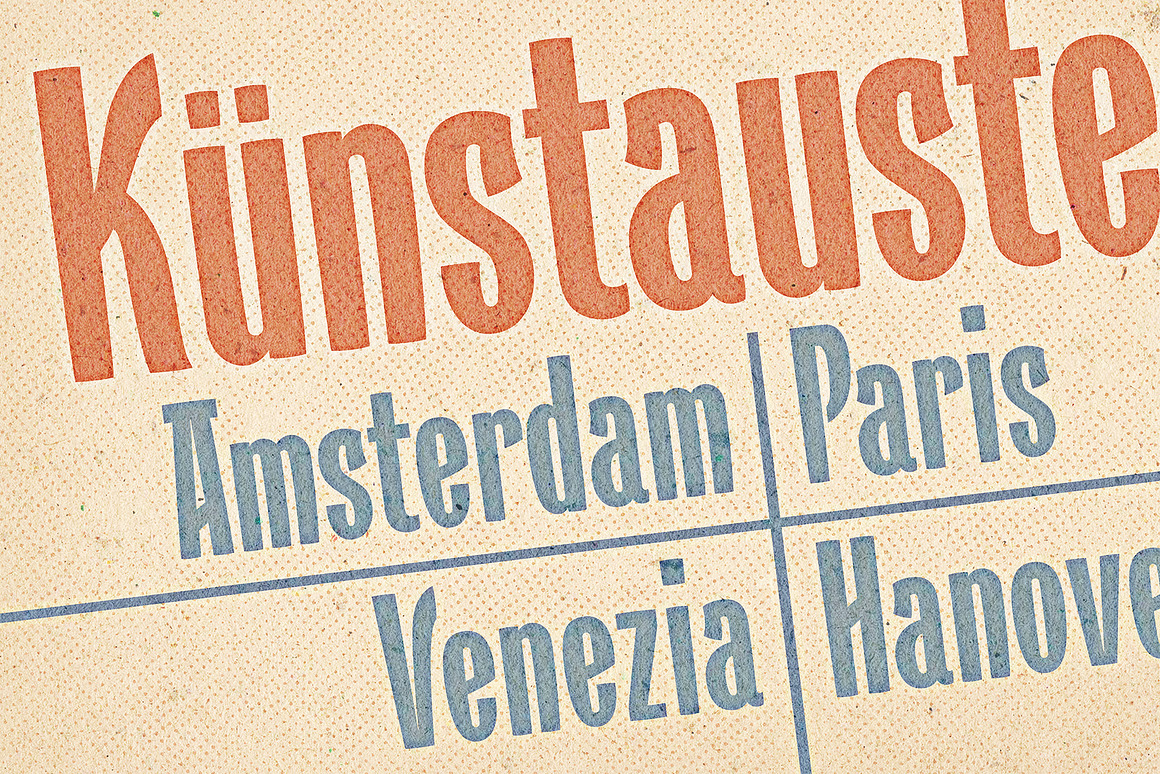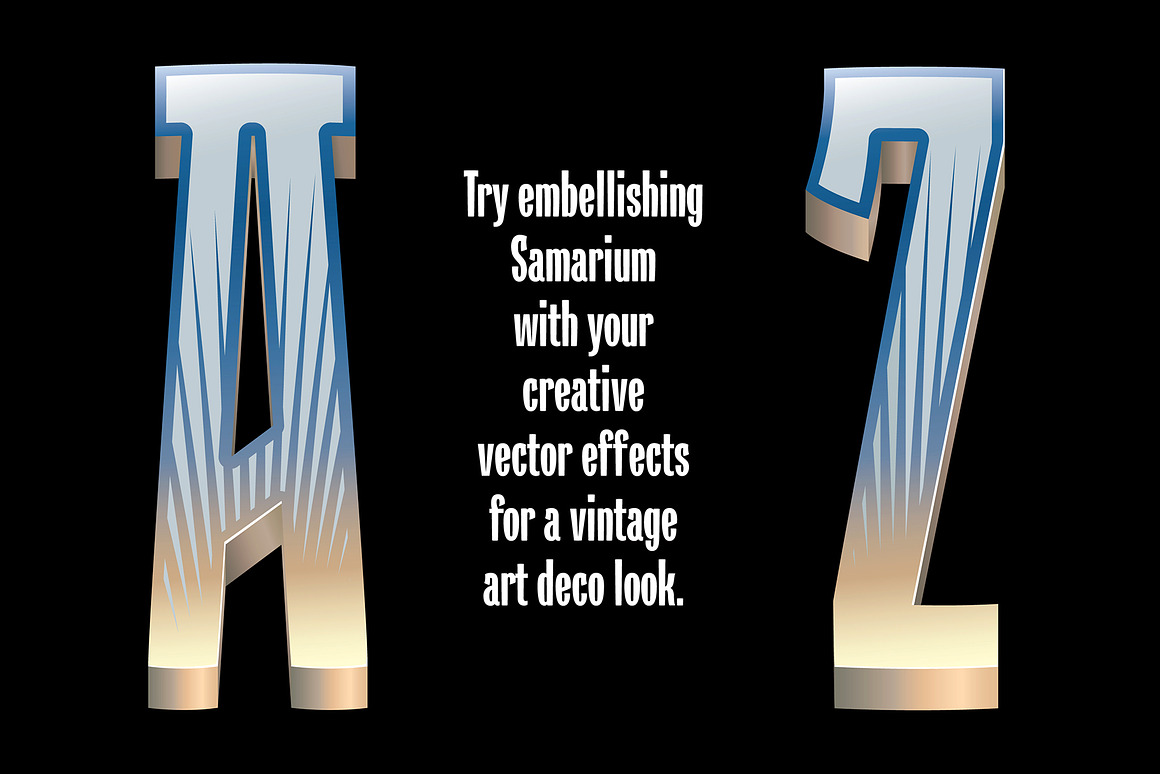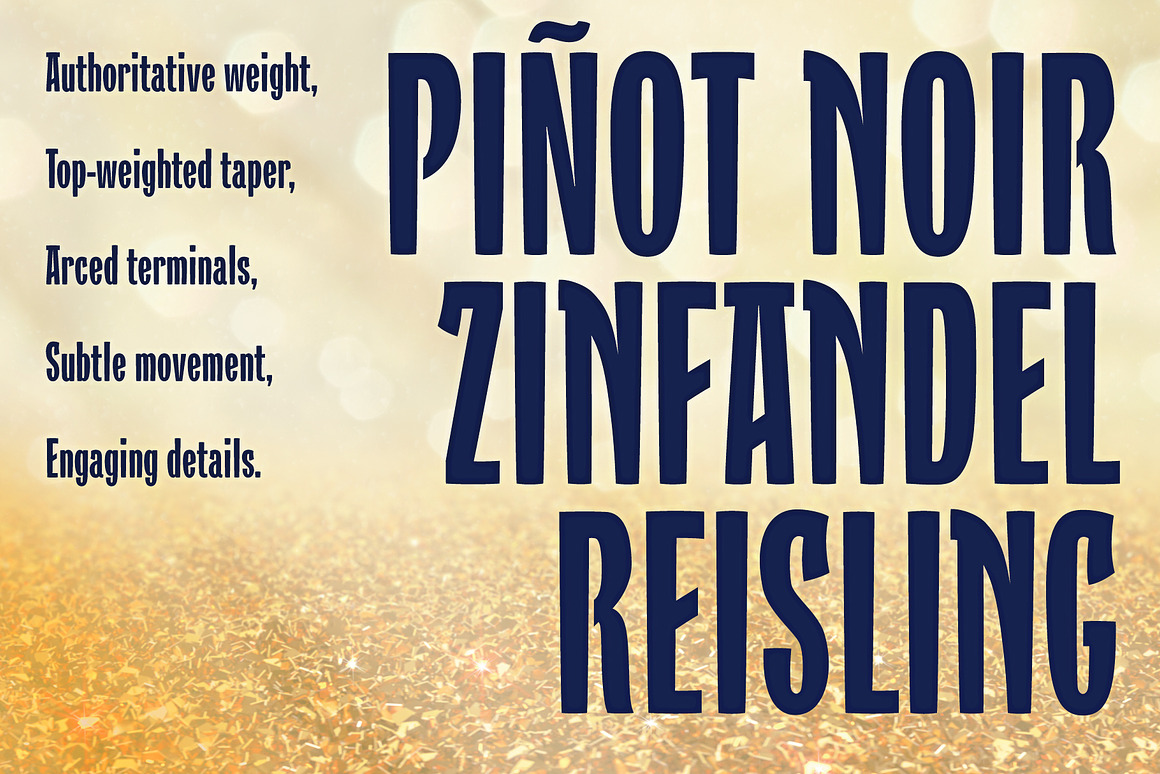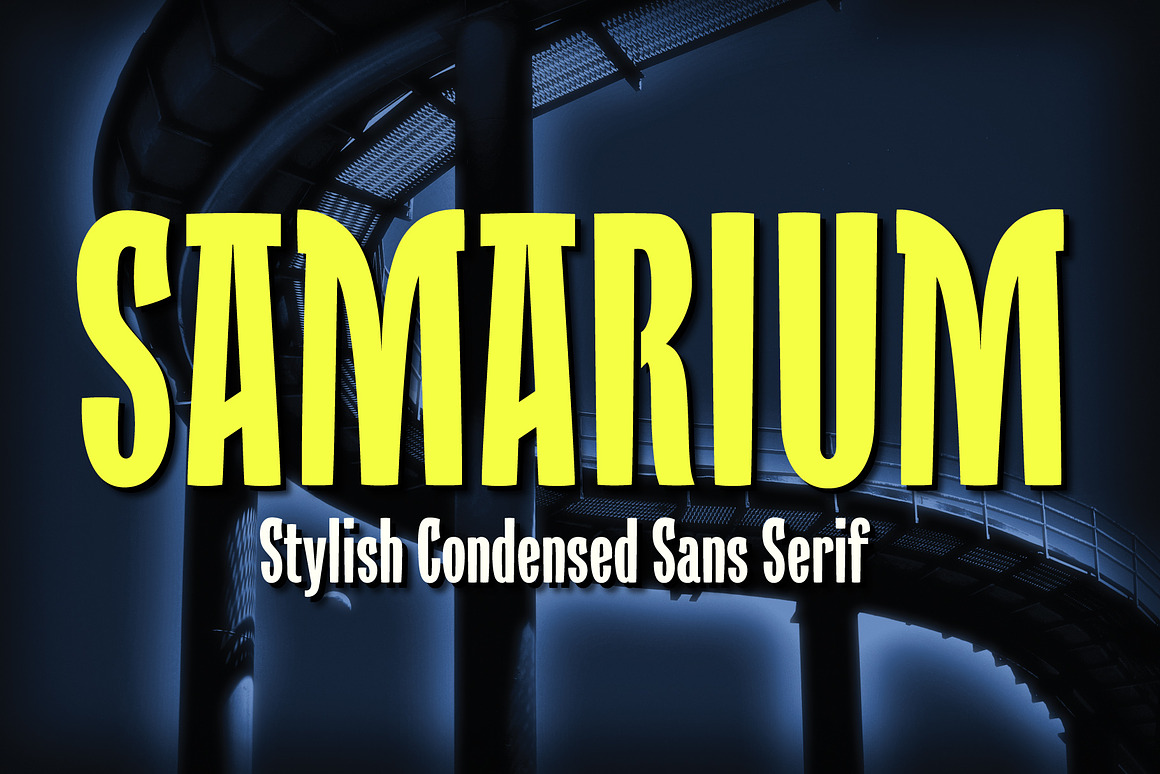
Samarium: A Bold Condensed Font
Samarium: A Bold Condensed Font is perfect for impactful headlines, sports branding, poster designs, editorial spreads, and attention-grabbing advertisements. Its condensed shape makes it an excellent choice for designs where space is limited but maximum visual impact is required.
What makes Samarium: A Bold Condensed Font exciting is its commanding presence and strong personality. The bold letterforms instantly capture attention, while the condensed proportions keep the design clean and efficient. This balance of power and precision makes it a go-to font for high-energy and modern projects.
The Samarium: A Bold Condensed Font family includes styles such as Regular, Bold, Extra Bold, and Italic, providing plenty of creative flexibility. From statement titles to dynamic branding, you’ll find the right weight and style for any application.